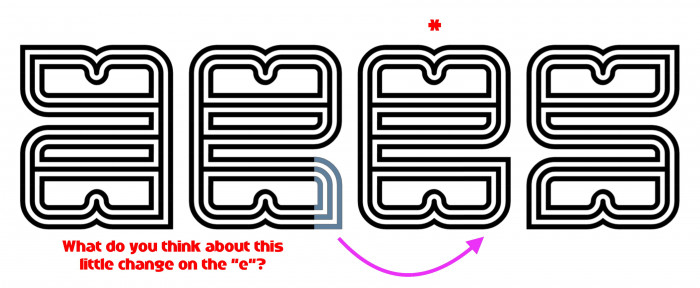
A lovely neon-western-esque font~
Thanks @ Rob Meek, @elmoyenique and @tortoiseshell! The sample is excellent, @elmoyenique! My original e was like your sample, I'll include it again as an alternative glyph.